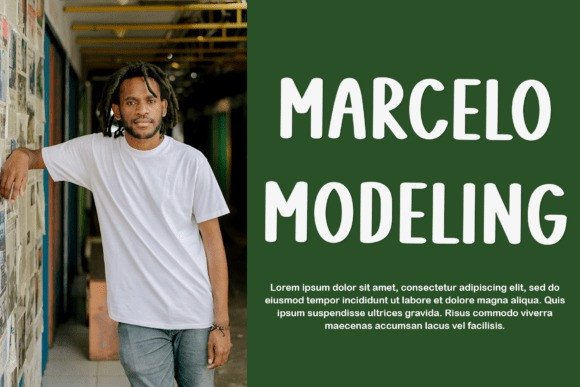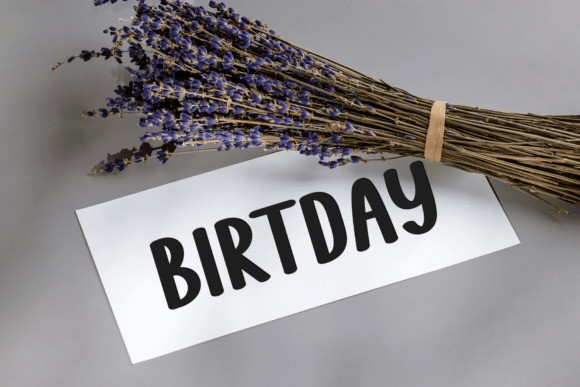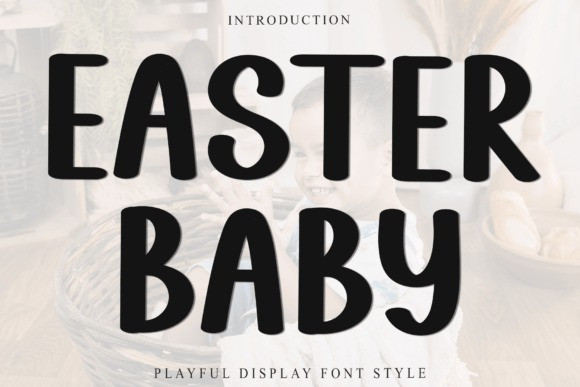
Easter Baby Font
Easter Baby Font – Command attention with this bold display font, designed to make a statement. Featuring strong lines, striking shapes, and impactful presence, it’s perfect for headlines, posters, branding, and any design that needs to stand out. Its confident and modern style ensures your message is seen loud and clear, bringing power and personality to every project.